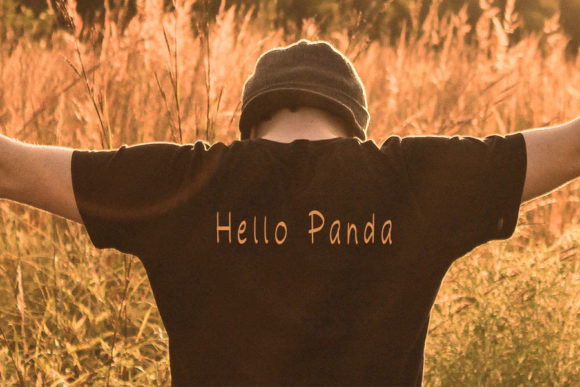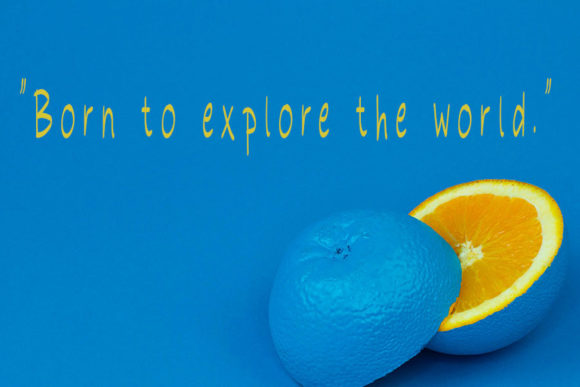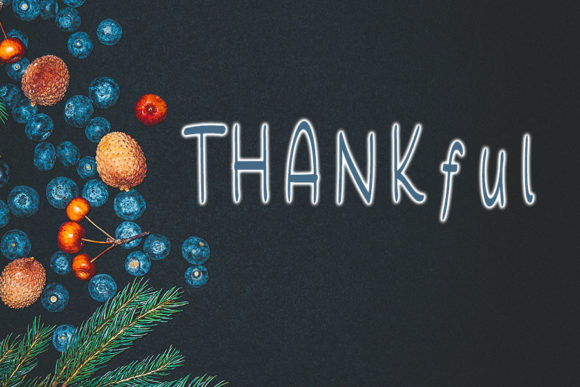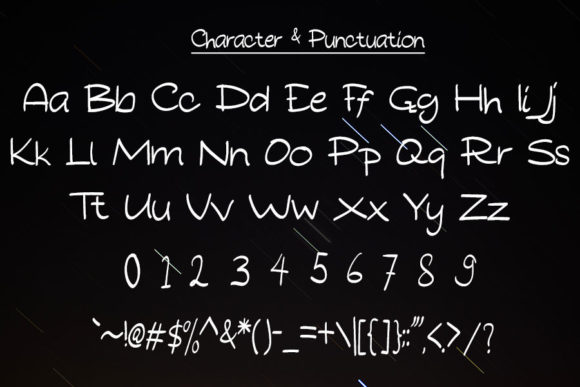
Soemadi Font
About Soemadi Font
Soemadi is a cute handwritten font. Its sweet and full of life style makes this font a wonderful choice for brightening up your designs.